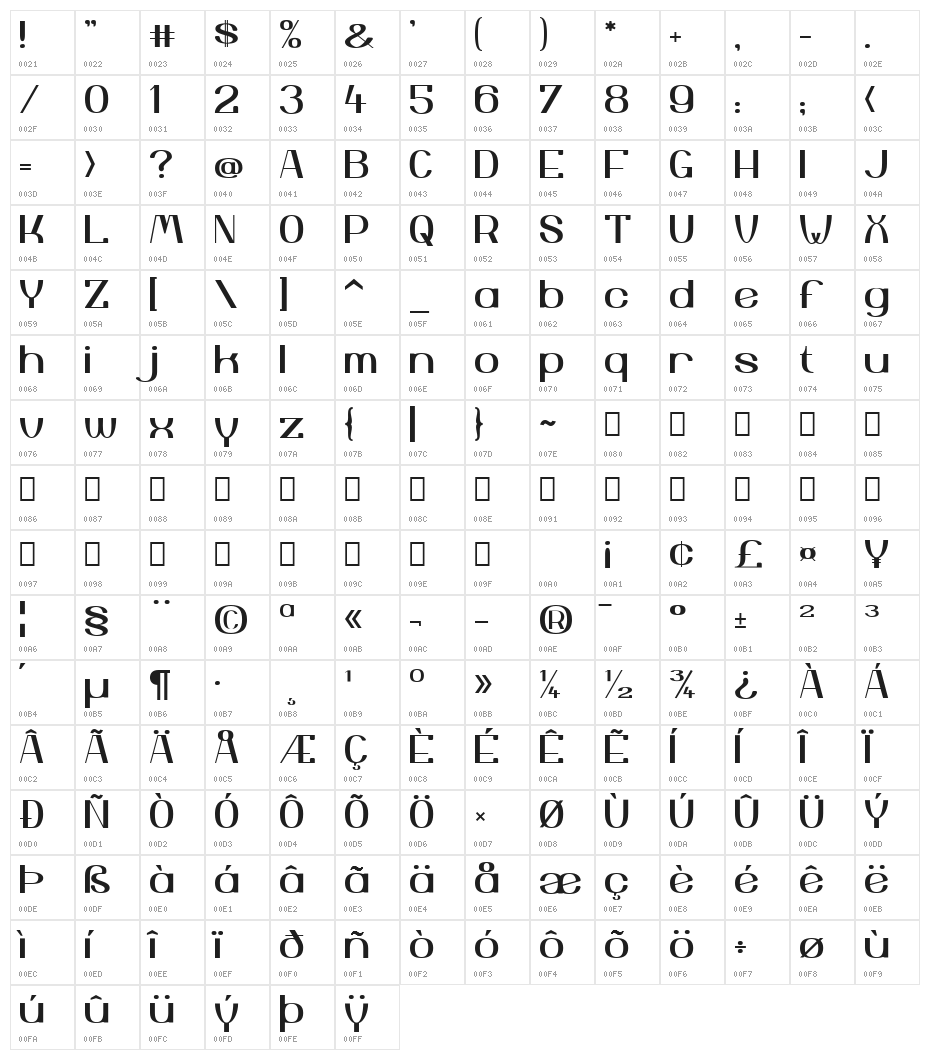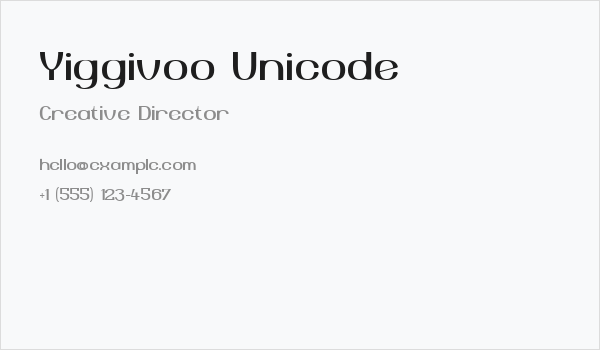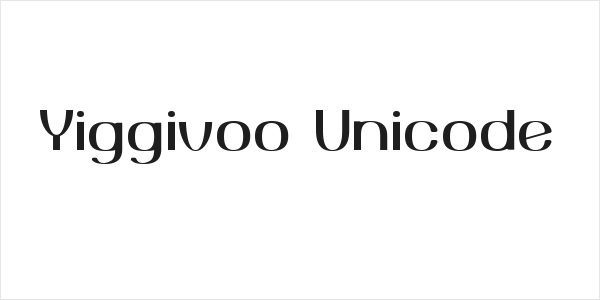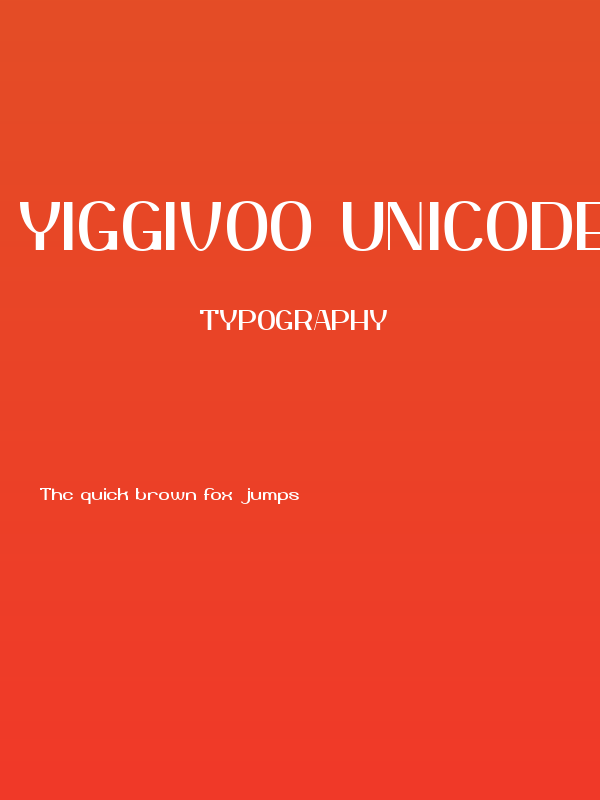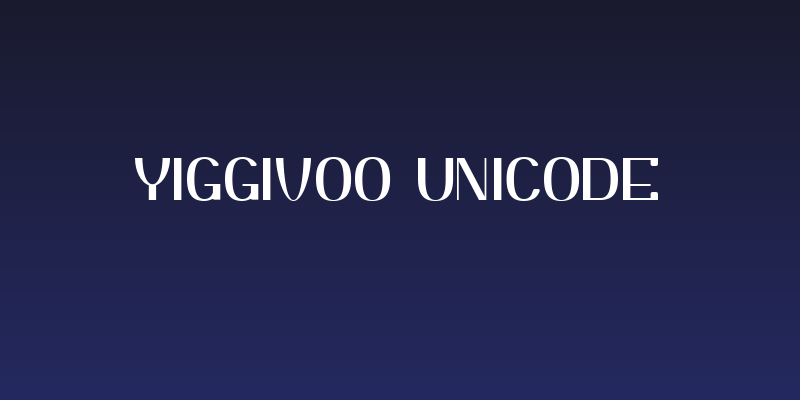
Yiggivoo Unicode Font
Yiggivoo Unicode Description
This font features a unique blend of modern and decorative elements, characterized by its distinct geometric shapes and varying stroke widths. The uppercase letters exhibit a bold and striking presence with sharp angles and curves, creating a dynamic visual impact. The lowercase letters maintain a cohesive style, with smooth curves and a slightly playful appearance. The numerals are consistent with the overall design, offering a clear and readable format. Special characters are thoughtfully integrated, enhancing the font's versatility. This font's design is both eye-catching and functional, making it suitable for a variety of creative applications.
| Proposed Projects | Ideal for branding, advertising, posters, and creative digital projects. |